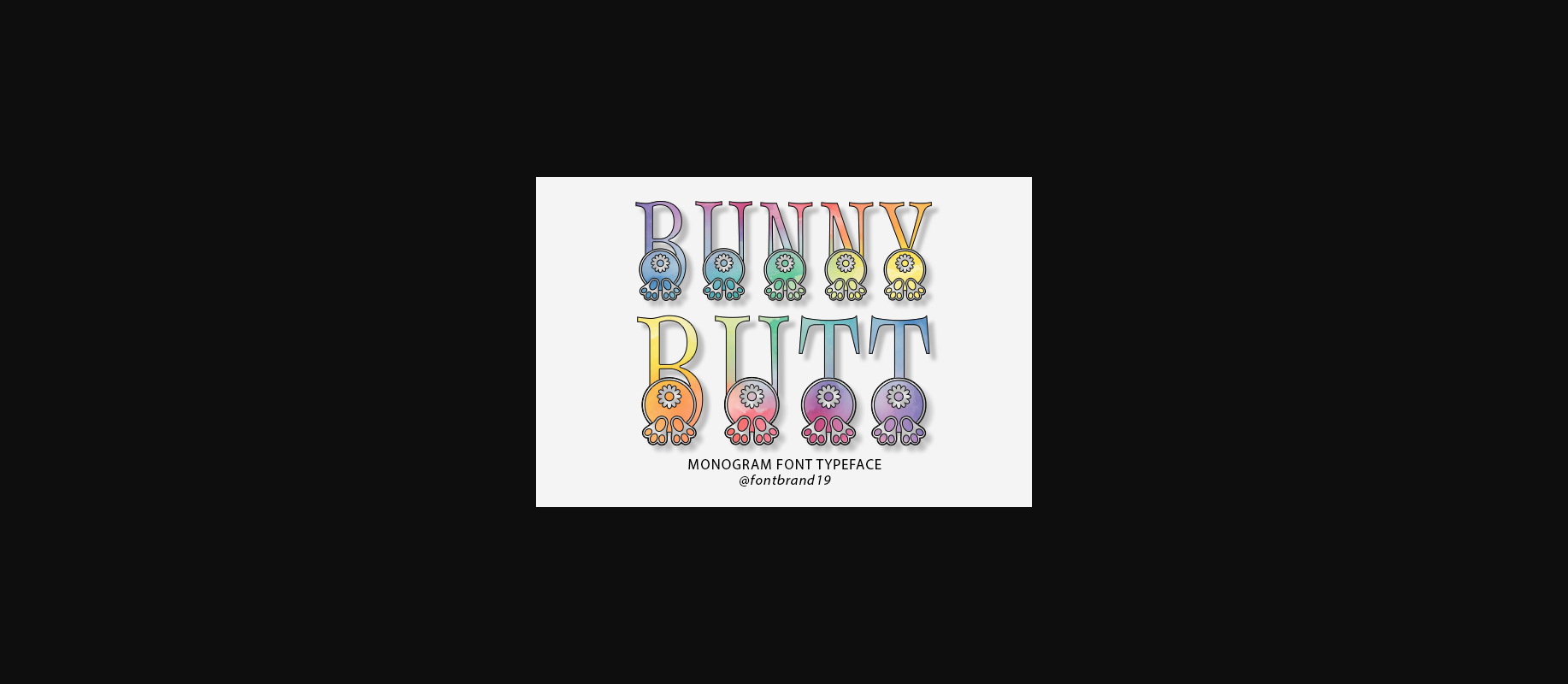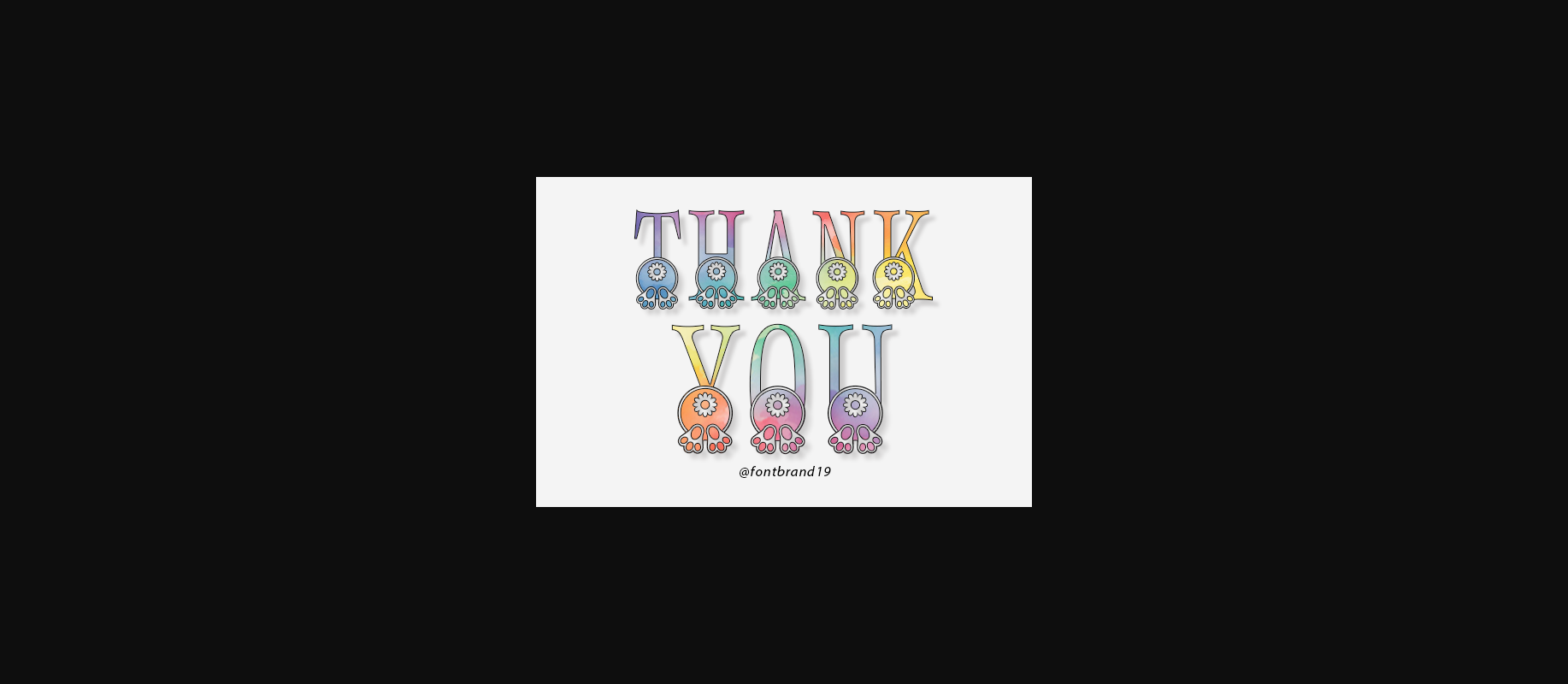
About Bunny Butt Monogram Font
Bunny Butt Monogram is a cute and funny decorative font, featuring lovely ornaments. Fall in love with its authentic feel and use it to create gorgeous wedding invitations, beautiful stationary art, eye-catching social media posts, and cute greeting cards.